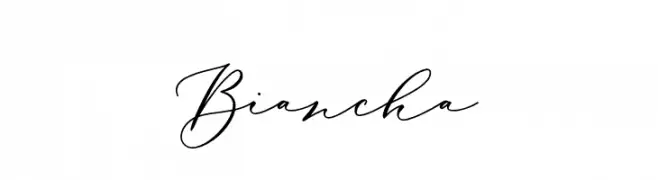
A bold, hand-drawn font with a playful and energetic style.
A playful, bold font with dynamic slanted letters and decorative underlines.
A bold, playful font with dynamic underlines and a lively style.
A whimsical, curly font with playful and decorative letterforms.
A playful, handwritten font with dynamic strokes and a whimsical style.
A bold, italicized font with a retro, playful vibe and strong presence.
A bold, italic, floral-patterned decorative font with a retro vibe.
A bold, playful handwritten font with fluid strokes and a casual style.
A bold, high-contrast font with geometric shapes and sharp angles.
Playful hipster-themed icon set with bold, quirky silhouettes.
A bold, geometric display font with unique line patterns and a modern, decorative style.
A bold, modern font with a mix of solid and striped patterns for a striking visual impact.
A bold, brush script font with dynamic, hand-drawn strokes.
A playful and whimsical script font with flowing, connected letterforms.
An elegant script font with flowing, interconnected letters and ornate swashes.
An elegant, flowing cursive font with high contrast and delicate strokes.
A bold, brush-style font with dynamic, irregular strokes.
An elegant script font with intricate loops and flourishes, ideal for sophisticated designs.
A bold, brush-style font with dynamic and expressive strokes.
A bold, brush-style font with dynamic, hand-painted strokes.
A bold, blackletter-style font with ornate, gothic details.
A modern, decorative font with sharp angles and high contrast.
A lively, flowing script font with elegant cursive letterforms.
A bold, jagged, and energetic font with a graffiti-like style.
A bold, brush-style font with an energetic and rebellious appearance.
A bold serif font with classic elegance and refined details.
A bold, dynamic script font with sweeping, fluid strokes and a modern calligraphic style.
A vintage, textured serif font with a handcrafted, historical feel.
A bold, flowing script font with elegant curves and connected strokes.
An elegant, flowing script font with ornate flourishes and a traditional calligraphic style.
A bold, modern sans-serif font with clean lines and strong visual impact.
A bold, modern sans-serif font with clean lines and geometric simplicity.